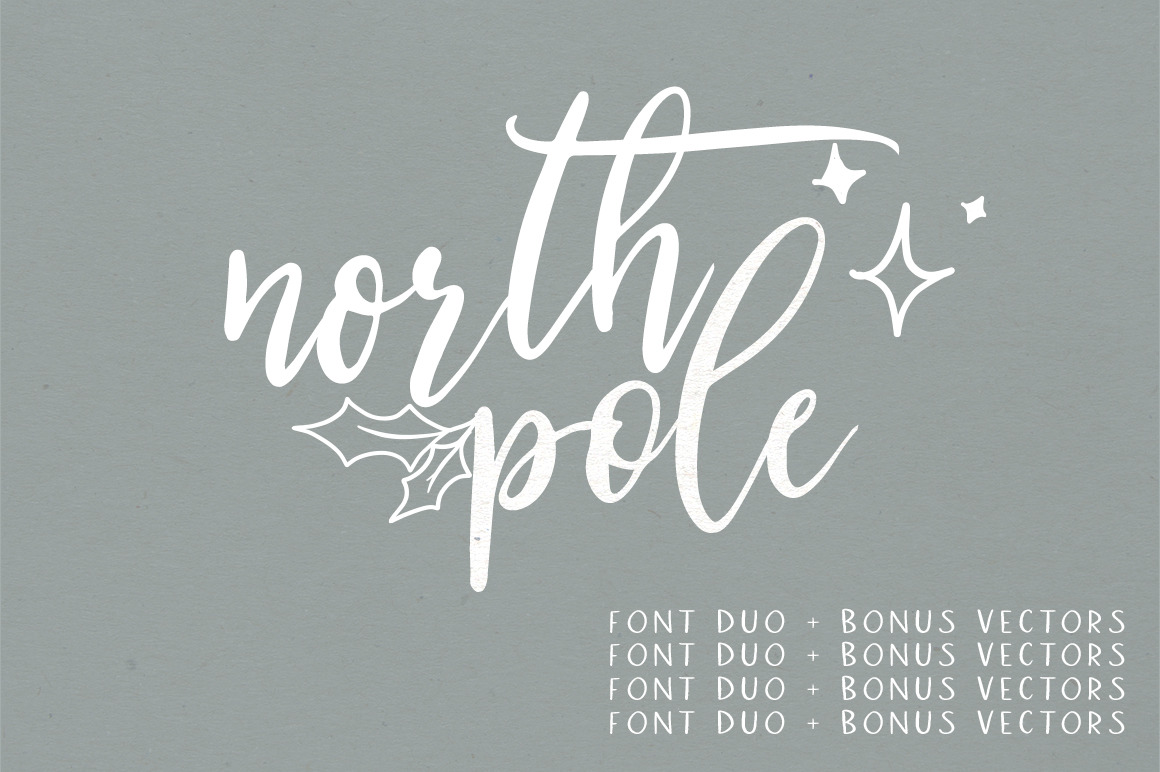
North Pole | A Holiday Font Duo
Don't be fooled by the name – North Pole is a new font duo perfect for all your year-round design needs! It includes two font files – North Pole Regular (sans serif) and North Pole Script.
North Pole Regular is a versatile all caps sans serif font; North Pole Script is a bouncy all lowercase script font. Alternates for North Pole Script are available via capital and lowercase letters!
Includes 7 bonus decorative vector elements to perfect your projects.
- North Pole Regular – All caps sans serif
- North Pole Script – All lowercase script w/ alternates via upper/lowercase